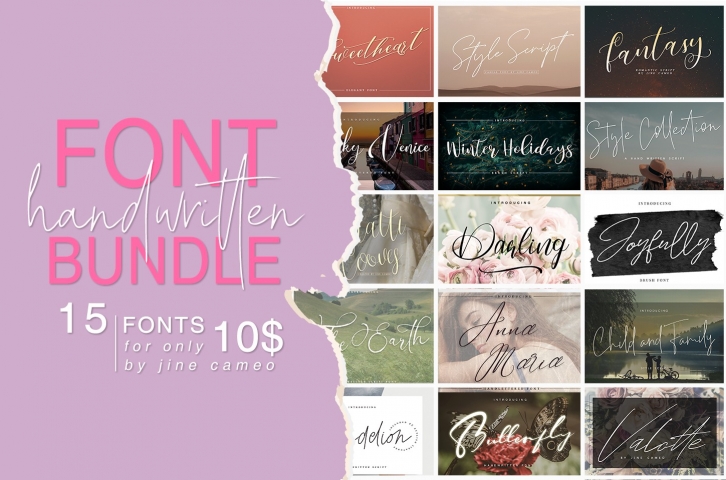
Handwritten Bundle 15 in 1 is a great font that was designed by Jine Cameo. Imagine the amount of combinations you can create using this font! The archive is 11.81 MB and it was released on March 11, 2020. Handwritten Bundle 15 in 1 looks beautiful on wedding invitations, greeting cards, logos, posters, labels, t-shirt designs, logos, business cards and is perfect for use in ink or watercolor works, fashion, magazines, packaging and food menus, children's books and more!